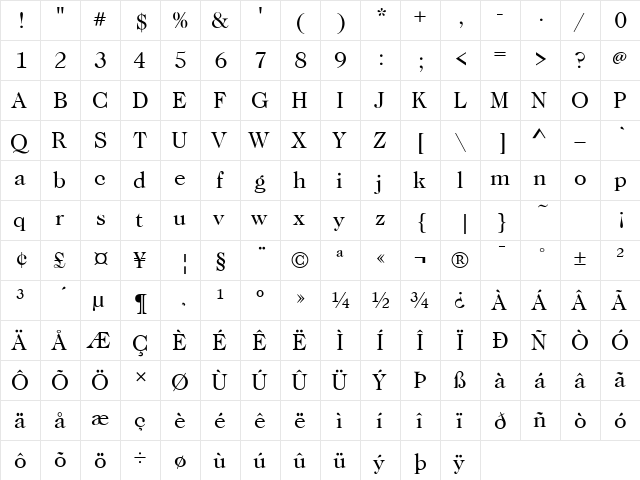
Caslon No224 ITC T Book Font Preview
Caslon No224 ITC T Book
Design Context for Caslon No224 ITC T Typeface
Caslon No224 ITC T offers clean, dependable letterforms without strong stylistic allegiance, making it a practical choice for designers who need flexibility.